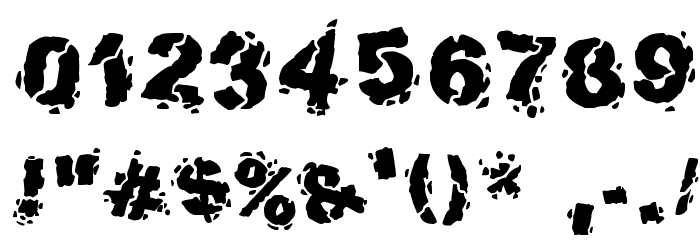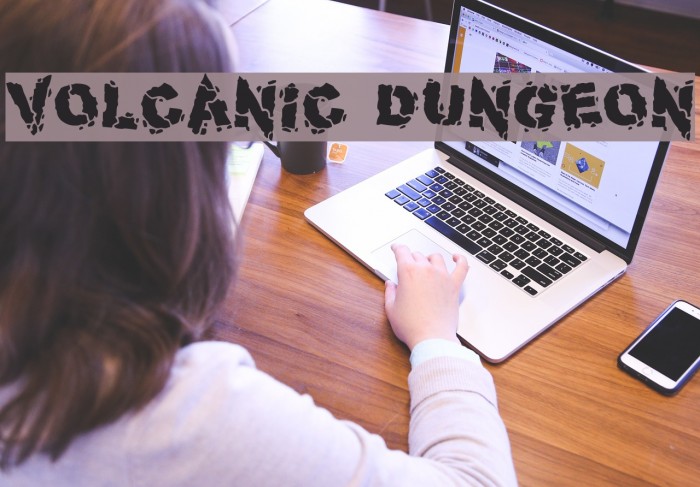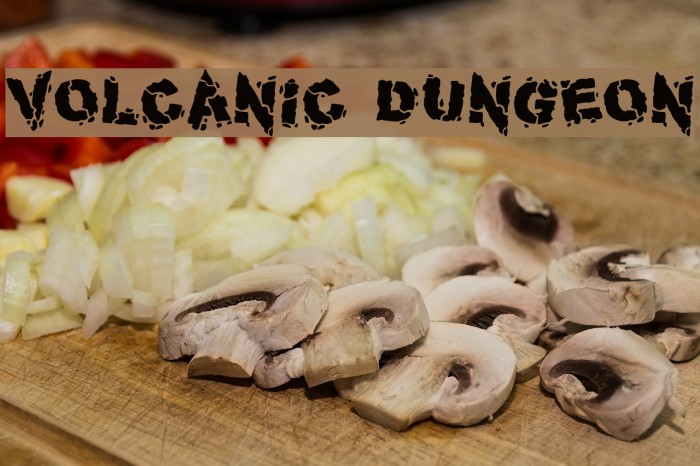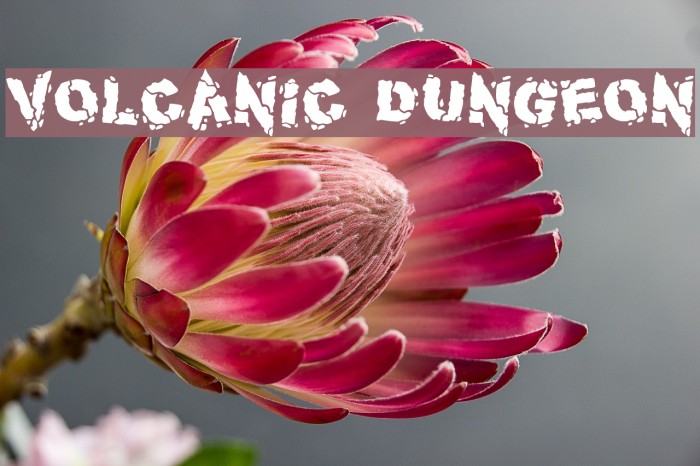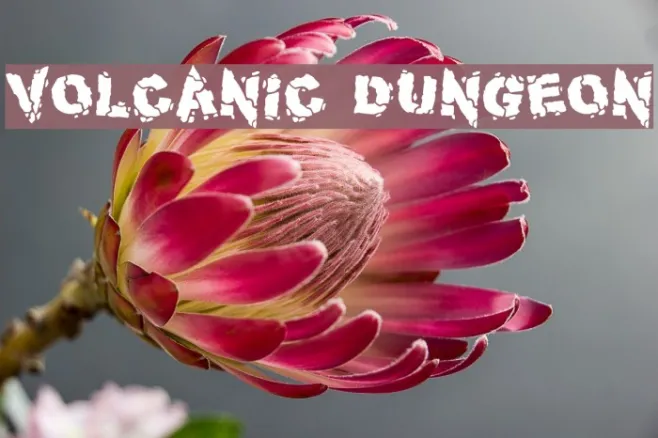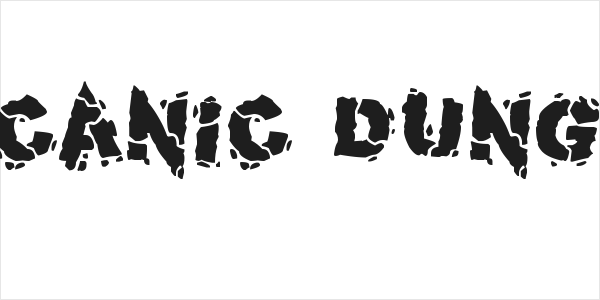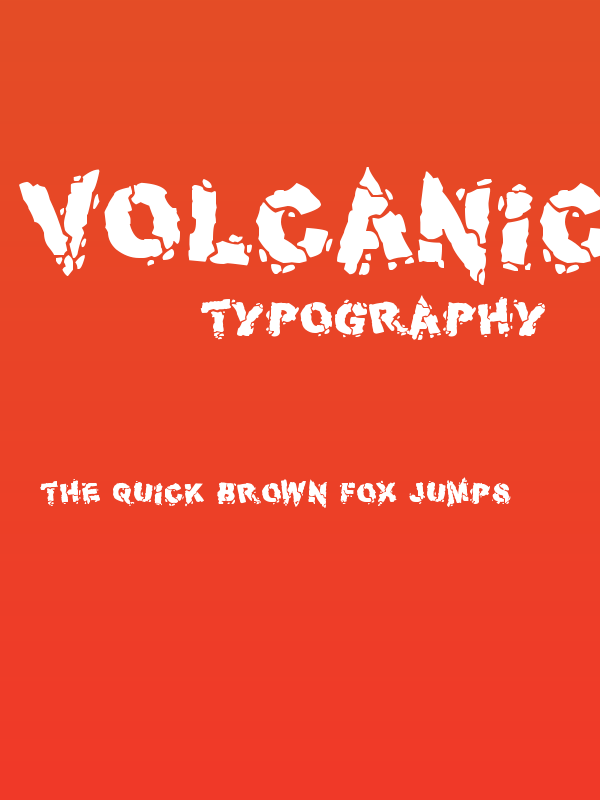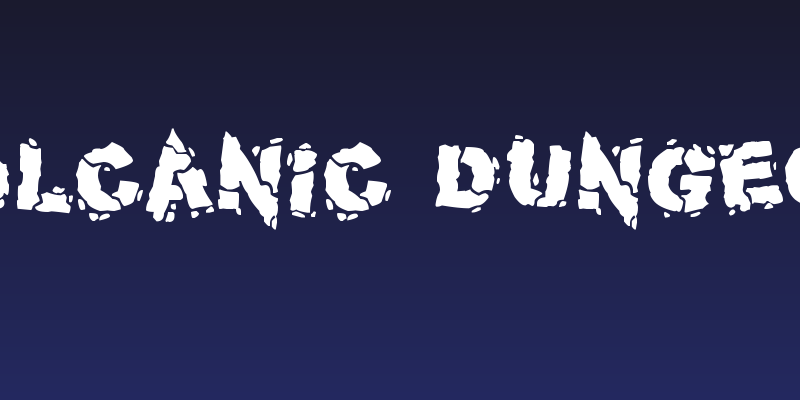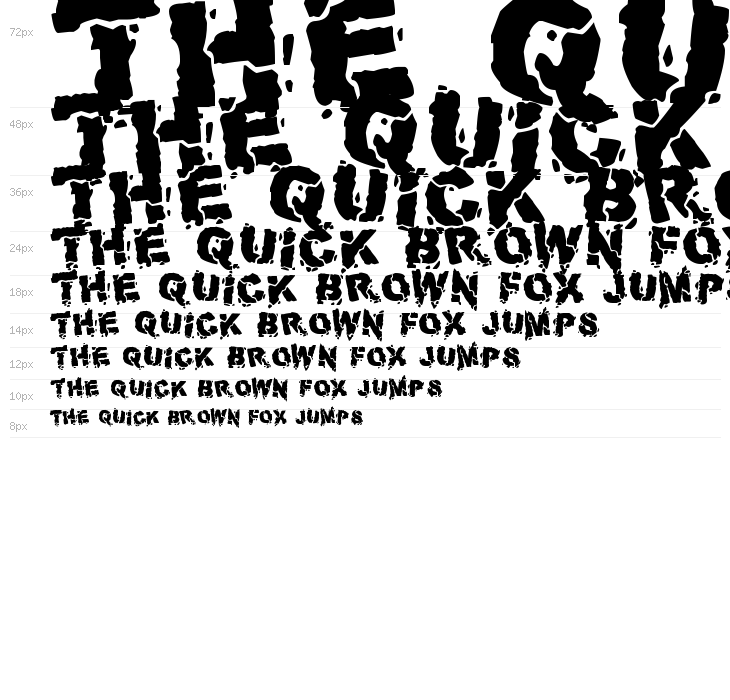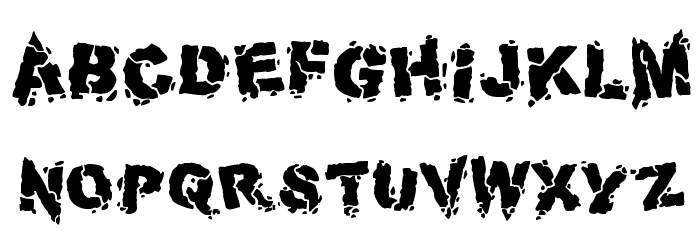
Volcanic Dungeon Font
Volcanic Dungeon Description
This font features a rugged, distressed appearance, reminiscent of volcanic rock formations. The characters are bold and heavily textured, with irregular edges that give a sense of erosion or decay. This style creates a dramatic and intense visual impact, making it suitable for themes that require a strong, edgy aesthetic. The uppercase and lowercase letters maintain a consistent style, with numbers and special characters following the same rugged design. The font's unique texture and bold presence make it stand out, ideal for projects that aim to capture attention and convey a sense of adventure or danger.
| Proposed Projects | Ideal for video game titles, movie posters, adventure-themed branding, and promotional materials. |